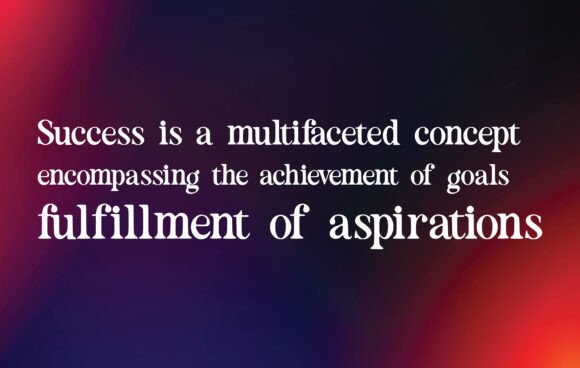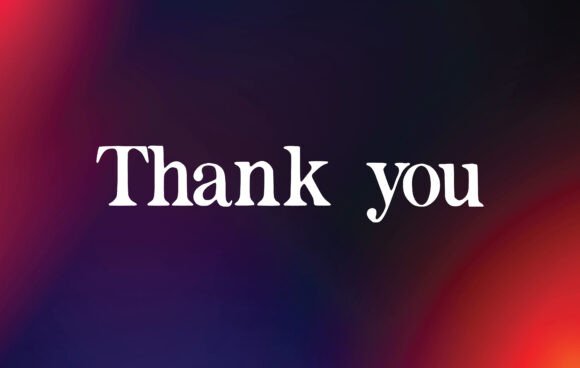
The Ultimate Design Companion: Getting to Know the Dakota Font
Have you ever been in the middle of a design project, and suddenly, you’re stuck on finding the perfect font? I recall a particularly frustrating experience while working on a magazine cover design. My client wanted a font that was not only stylish but also easy to read. After hours of scouring through font libraries, I stumbled upon the Dakota Font. It was love at first sight! ✨ This versatile font has since become my go-to favorite, and I’m excited to share its awesomeness with you.
An Honest Review of Dakota Font
So, what makes the Dakota Font so special? Let’s dive into the good stuff and a few quirks I’ve discovered.
- ✅ Versatility: Dakota Font is designed to be a chameleon – it fits seamlessly into various design projects, from magazine covers to social media posts.
- ✨ Eye-catching: This font has a unique flair that grabs attention without being too over-the-top.
- 📚 Easy to Read: Its clarity makes it perfect for both titles and body text, ensuring your message is conveyed effectively.
- 🎨 Style and Personality: Dakota Font brings a touch of sophistication and whimsy to any design, making it a great choice for creative projects.
While Dakota Font is incredibly versatile, there are a few things to keep in mind:
- 🤔 Limited Condensed Styles: If you’re looking for ultra-condensed styles for tight spaces, Dakota Font might not have the exact variation you need.
- ⚠️ Glyph Support: Some advanced glyphs or special characters might require additional setup or exploration of OpenType features.
The Story Behind Dakota Font
While the actual origins of Dakota Font might be shrouded in mystery, it’s easy to imagine a designer with a passion for versatility and style creating it. Perhaps they envisioned a font that could effortlessly transition from formal to casual, suiting a wide range of creative needs. Whatever the inspiration, Dakota Font embodies a perfect blend of modernity and approachability.
Q: Is Dakota Font suitable for body text?
A: Absolutely! Its readability makes it an excellent choice for both headings and body text.
Q: Does Dakota Font support OpenType features?
A: Yes, Dakota Font comes with a range of OpenType features, including stylistic alternates and glyphs, allowing for extensive customization.
| Font Name | Dakota Font |